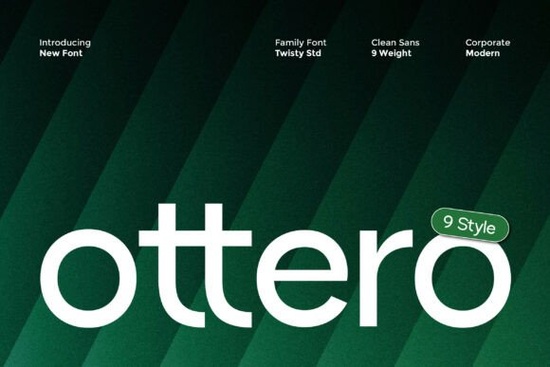
Designers, crafters, and small business owners often look for fonts that are both functional and visually appealing. Ottero Font is a versatile choice that stands out for its clean, modern aesthetic. Whether you're working on a logo, a website, or print materials, this font offers clarity and consistency across different design projects. Its 9 styles provide flexibility, making it easy to create strong visual hierarchies without sacrificing readability.
One of the key strengths of Ottero Font is its balanced proportions and refined structure. The minimalist approach ensures that every detail feels intentional, which makes it ideal for both bold headlines and extended body text. This balance is especially important in digital and print media where legibility is crucial. If you're looking for a font that works well in multiple contexts, Ottero could be a great fit for your toolkit.
Why Choose a Sans Serif Font?
Sans serif fonts like Ottero are popular because they offer a clean, modern look that's easy on the eyes. They work well in a variety of settings, from websites to packaging designs. For designers who want a professional yet approachable feel, sans serif fonts can make a big difference. Ottero Font is part of a growing trend toward minimalism in typography, where simplicity is valued over complexity.
How to Use Ottero Font in Your Projects
Using Ottero Font can enhance the overall look of your designs. For example, you might use the bold style for headings and the lighter weights for body text. This contrast helps guide the reader’s eye through your content while maintaining a cohesive visual theme. The font’s clean lines also make it suitable for logos, banners, and social media graphics.
When working with a new font, it's helpful to test it in different sizes and formats. Ottero Font performs well at both large and small scales, which means it can be used in everything from posters to mobile app interfaces. If you're designing for print, the font’s high readability ensures that your message comes through clearly, no matter the medium.
If you're looking for a font that blends professionalism with modern design, Ottero Font is worth considering. Its clean lines and balanced structure make it suitable for a wide range of projects. Whether you're creating a website, a brochure, or a custom t-shirt design, this font can help you achieve a polished and cohesive look.
Before finalizing your design, take some time to experiment with different weights and styles. This will help you understand how Ottero Font can best serve your project. If you're new to typography, starting with a simple font like Ottero can be a great way to build confidence and improve your design skills.
Remember, the right font can make a big difference in how your work is perceived. Ottero Font is a reliable choice that combines functionality with a modern aesthetic. Whether you're a designer, a small business owner, or a creative hobbyist, this font may be exactly what you need to elevate your designs.